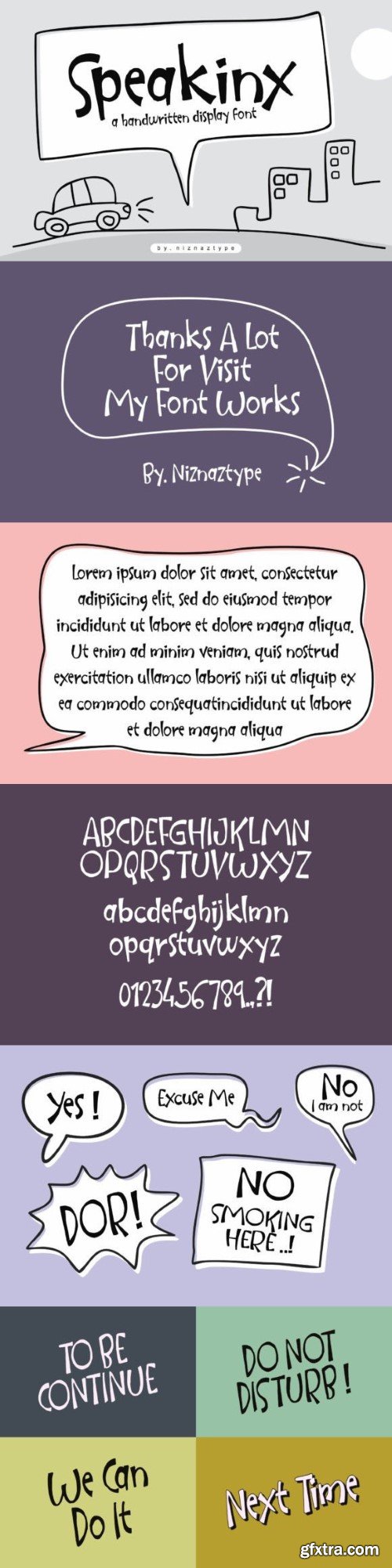
Speakinx 字体
Speakinx is a sweet and friendly comic style handwritten font. Its natural and unique style makes it incredibly fitting to a large pool of designs. The only limit is your imagination!